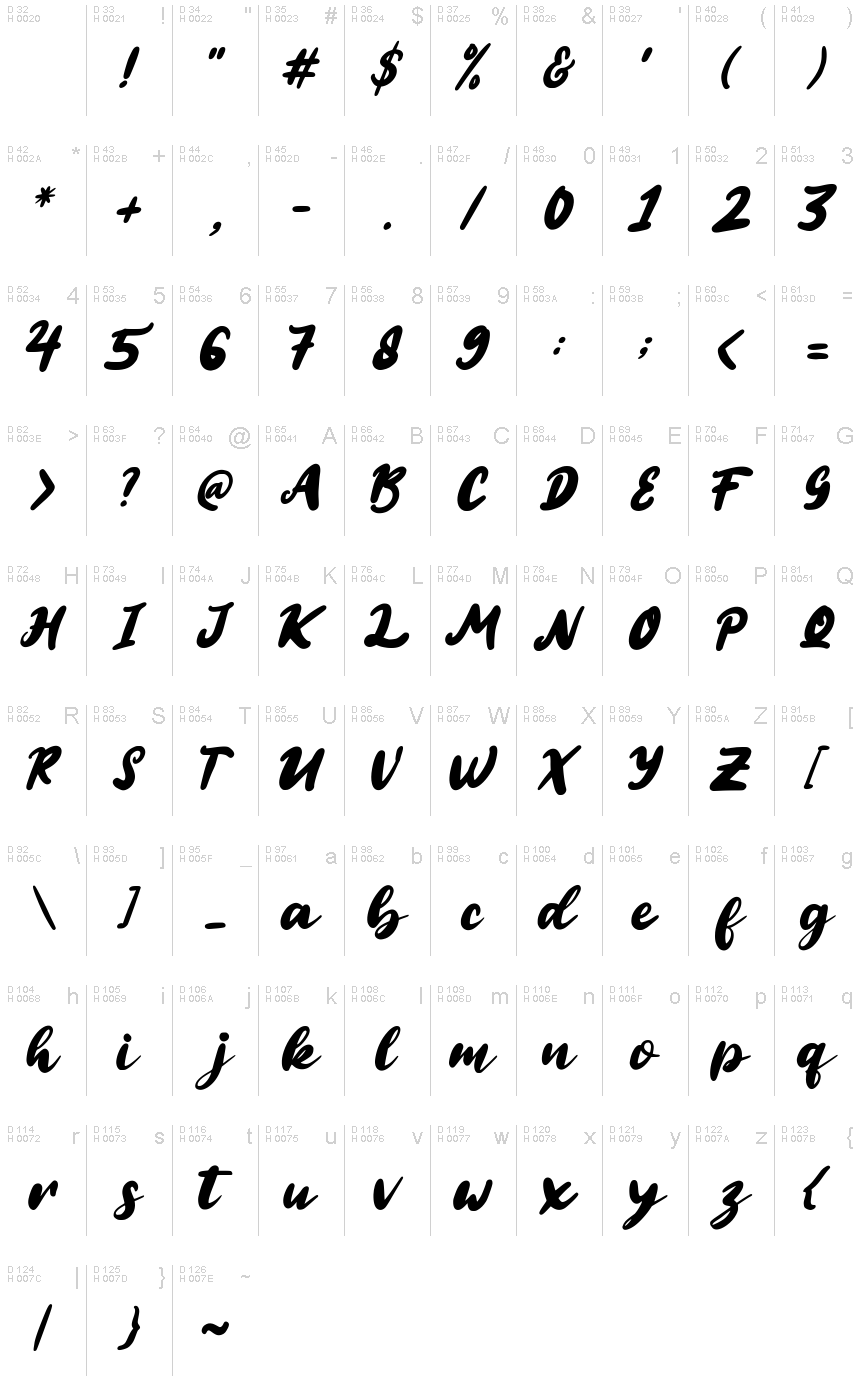
Hamidah
Hamidah, designed by Ikrar Bey Khubaib, stands as a testament to the allure of handwritten aesthetics fused with contemporary boldness. This smooth brush font captivates with its fluid strokes and an undeniable sense of elegance, making it a standout choice for those seeking to imbue their work with personality and warmth.
With its bold weight, Hamidah offers a perfect blend of impact and legibility that is as versatile as it is beautiful. From the branding of luxury products to the crafting of poignant invitations or expressive editorial content, this font's dynamic range ensures it can adapt seamlessly across various creative realms.
Embrace Hamidah's charm to elevate your design projects with a touch of handcrafted sophistication that resonates with viewers on a personal level.